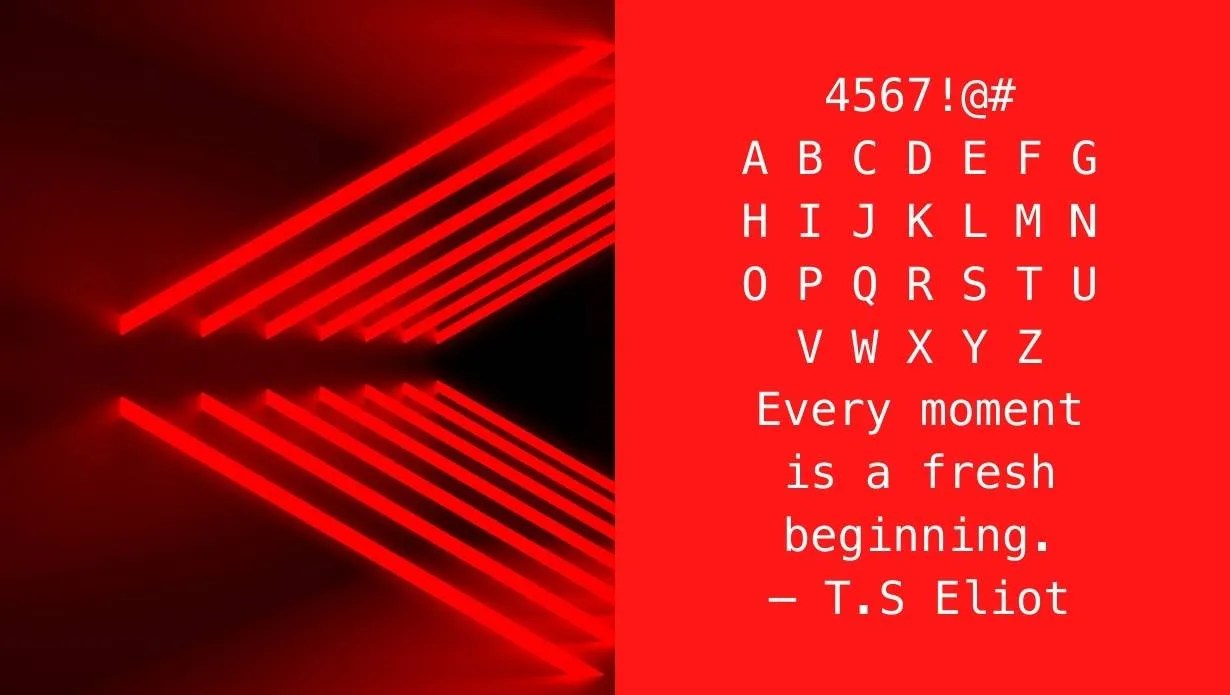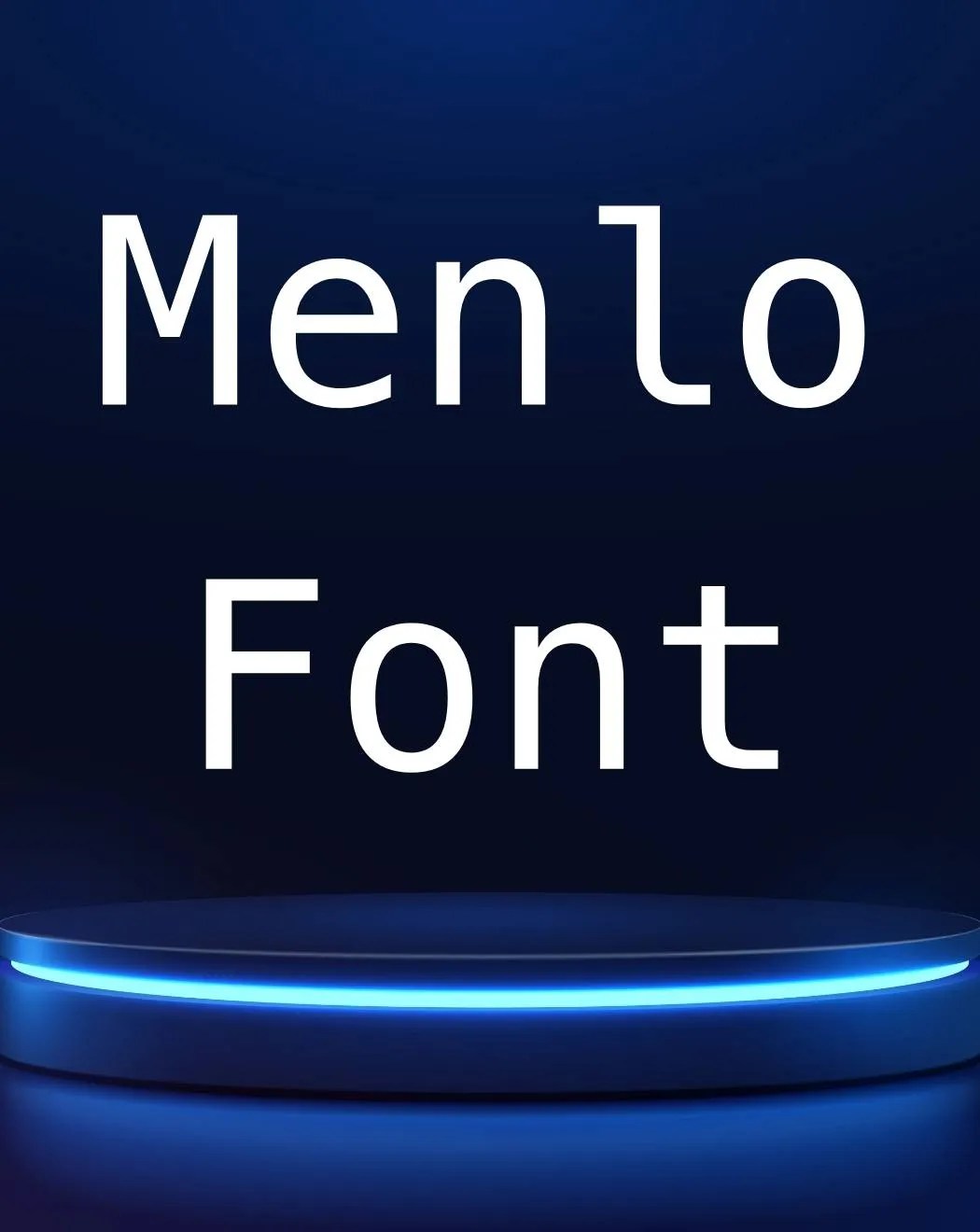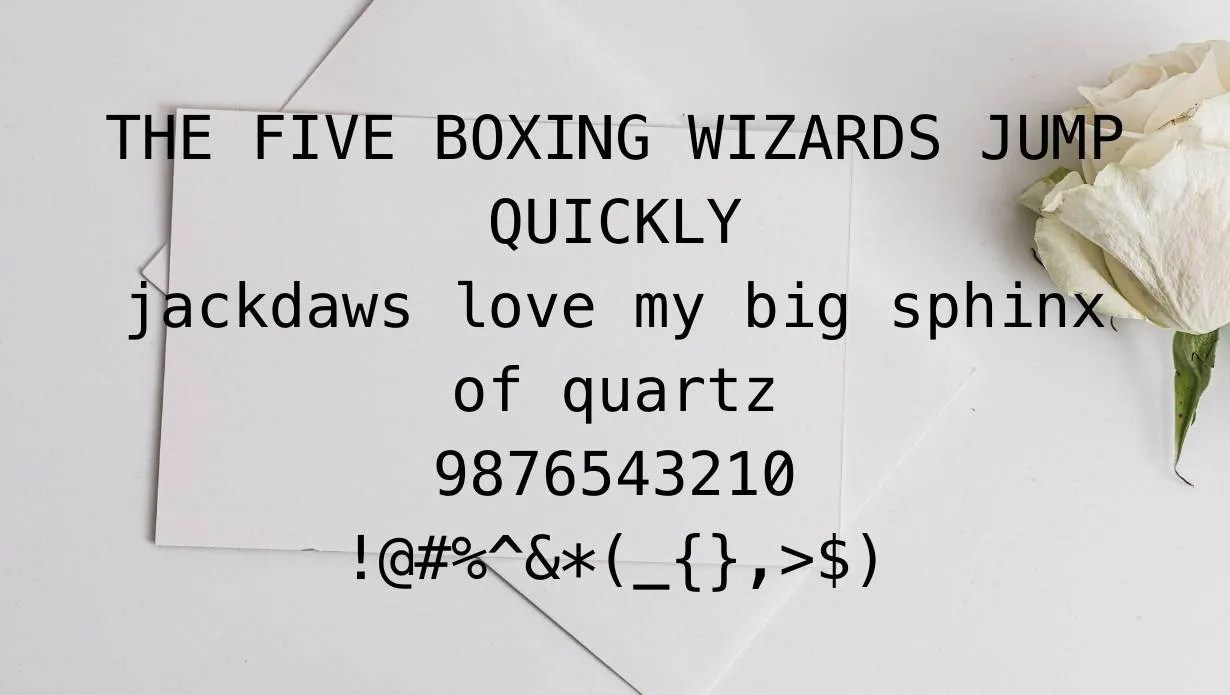
Is Menlo A Free Font . Menlo is by apple, and is only available as included with macos. You can download the menlo font to your computer or use it on your. Designers, character charts, features, and more. Here is a comparison (updated link) of menlo and bitstream vera sans mono. Menlo font family designed by jim lyles has a total of 1 different styles. Moreover, you can embed it to your. Information about the coding font menlo: Minlo is a minimal version of the menlo font that is around 11k per file, versus 150k in the original. Since menlo is not available outside of macos,. It’s based on the open. Menlo is based on bitstream vera sans mono and dejavu sans mono, so they have the same the line height as menlo and share many of the exact.
Menlo font family designed by jim lyles has a total of 1 different styles. Designers, character charts, features, and more. Information about the coding font menlo: It’s based on the open. Moreover, you can embed it to your. Here is a comparison (updated link) of menlo and bitstream vera sans mono. You can download the menlo font to your computer or use it on your. Menlo is based on bitstream vera sans mono and dejavu sans mono, so they have the same the line height as menlo and share many of the exact. Menlo is by apple, and is only available as included with macos. Since menlo is not available outside of macos,.
Is Menlo A Free Font Minlo is a minimal version of the menlo font that is around 11k per file, versus 150k in the original. Menlo is based on bitstream vera sans mono and dejavu sans mono, so they have the same the line height as menlo and share many of the exact. It’s based on the open. You can download the menlo font to your computer or use it on your. Information about the coding font menlo: Here is a comparison (updated link) of menlo and bitstream vera sans mono. Minlo is a minimal version of the menlo font that is around 11k per file, versus 150k in the original. Menlo is by apple, and is only available as included with macos. Designers, character charts, features, and more. Moreover, you can embed it to your. Menlo font family designed by jim lyles has a total of 1 different styles. Since menlo is not available outside of macos,.
Menlo — a monospaced sansserif typeface designed by Jim Lyles. Menlo Is Menlo A Free Font Menlo is by apple, and is only available as included with macos. Designers, character charts, features, and more. Minlo is a minimal version of the menlo font that is around 11k per file, versus 150k in the original. Information about the coding font menlo: Since menlo is not available outside of macos,. Here is a comparison (updated link) of menlo. Is Menlo A Free Font.
Evaluating Programming Fonts & Choosing the Right One for You Is Menlo A Free Font Minlo is a minimal version of the menlo font that is around 11k per file, versus 150k in the original. Menlo is based on bitstream vera sans mono and dejavu sans mono, so they have the same the line height as menlo and share many of the exact. You can download the menlo font to your computer or use it. Is Menlo A Free Font.
Great Typewriter Fonts in Microsoft Word Investomatica Is Menlo A Free Font You can download the menlo font to your computer or use it on your. Moreover, you can embed it to your. It’s based on the open. Since menlo is not available outside of macos,. Menlo is by apple, and is only available as included with macos. Menlo font family designed by jim lyles has a total of 1 different styles.. Is Menlo A Free Font.
Menlo Font Free Download Is Menlo A Free Font Minlo is a minimal version of the menlo font that is around 11k per file, versus 150k in the original. Designers, character charts, features, and more. It’s based on the open. Since menlo is not available outside of macos,. Information about the coding font menlo: Here is a comparison (updated link) of menlo and bitstream vera sans mono. Menlo font. Is Menlo A Free Font.
Menlo Font Download Free for Desktop & font Is Menlo A Free Font You can download the menlo font to your computer or use it on your. Menlo is based on bitstream vera sans mono and dejavu sans mono, so they have the same the line height as menlo and share many of the exact. Here is a comparison (updated link) of menlo and bitstream vera sans mono. Minlo is a minimal version. Is Menlo A Free Font.
Menlo font download info & examples Is Menlo A Free Font Minlo is a minimal version of the menlo font that is around 11k per file, versus 150k in the original. Menlo is by apple, and is only available as included with macos. Moreover, you can embed it to your. Information about the coding font menlo: Since menlo is not available outside of macos,. Menlo font family designed by jim lyles. Is Menlo A Free Font.
Menlo Font Free Download Cofonts Is Menlo A Free Font Here is a comparison (updated link) of menlo and bitstream vera sans mono. It’s based on the open. Designers, character charts, features, and more. Information about the coding font menlo: Menlo font family designed by jim lyles has a total of 1 different styles. Menlo is based on bitstream vera sans mono and dejavu sans mono, so they have the. Is Menlo A Free Font.
Menlo Font Download Free for Desktop & font Is Menlo A Free Font Since menlo is not available outside of macos,. It’s based on the open. Menlo font family designed by jim lyles has a total of 1 different styles. Here is a comparison (updated link) of menlo and bitstream vera sans mono. Menlo is based on bitstream vera sans mono and dejavu sans mono, so they have the same the line height. Is Menlo A Free Font.
menlo font download carsondalytattoosleeves Is Menlo A Free Font Menlo font family designed by jim lyles has a total of 1 different styles. Here is a comparison (updated link) of menlo and bitstream vera sans mono. Menlo is by apple, and is only available as included with macos. Information about the coding font menlo: You can download the menlo font to your computer or use it on your. It’s. Is Menlo A Free Font.